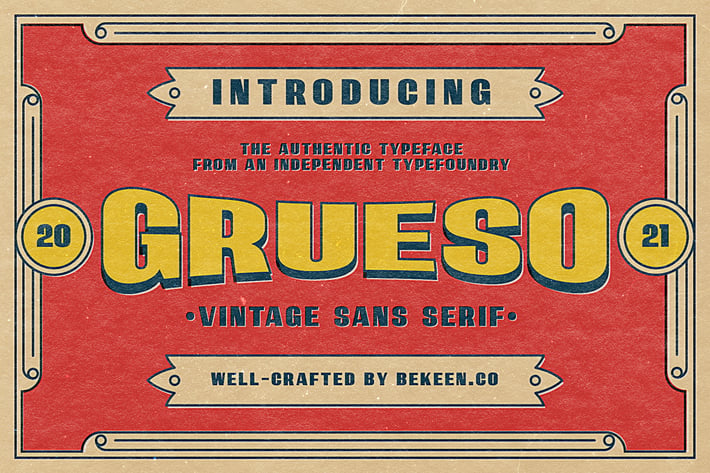
Bold Vintage Sans Serif Font
GRUESO is a vintage sans serif inspired by a 60s vintage Poster. GRUESO means thick in Spanish, it has a bold, strong, and retro look. GRUESO typeface is perfect for branding, labels, posters, packaging, advertisements, websites, and any retro designs.
Lowercase and Uppercase
Numerals and Punctuation